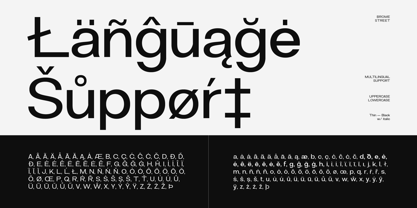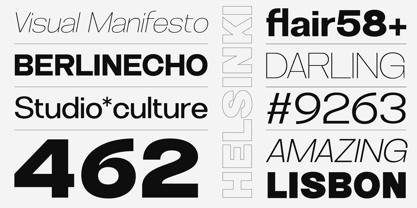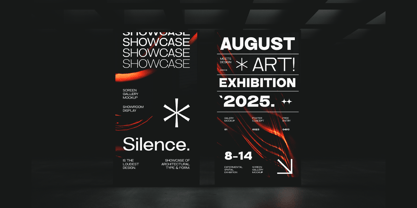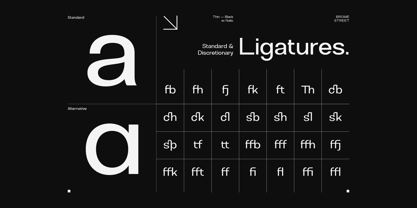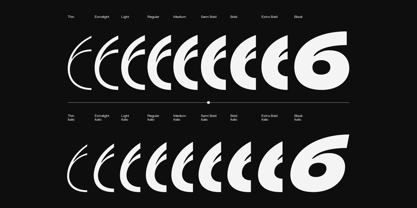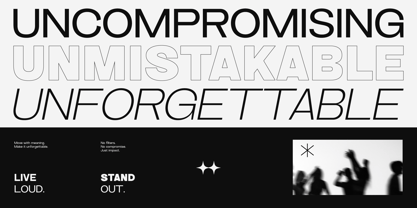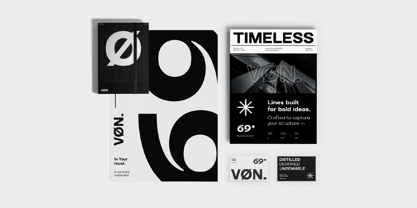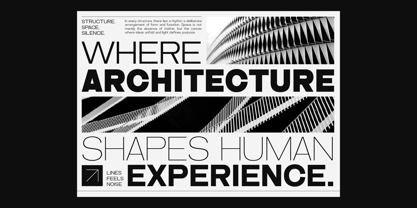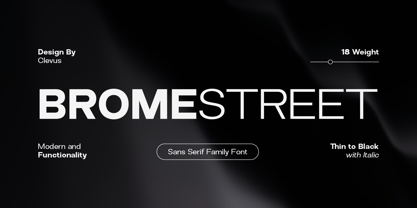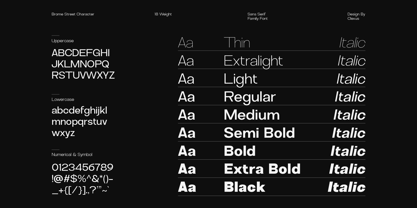
Brome Street
The Brome Street Font Family was designed by Alfinu Zafir and published by Clevus. Brome Street contains 18 styles and family package options. More about this family
Proudly present Brome Street Family Condensed Font, is a modern and bold condensed font inspired by classic grotesque typefaces with 18 weights.
Brome Street equipped with several OpenType. Have 18 weight and 20 unique alternates ligatures. Comes with alternatives and ligatures, and helps to create stunning logos, quotes, posts, blog posts, branding projects, magazine imagery, wedding invitations, poster and much more.
Brome Street delivers a powerful impact with a sleek, contemporary style.